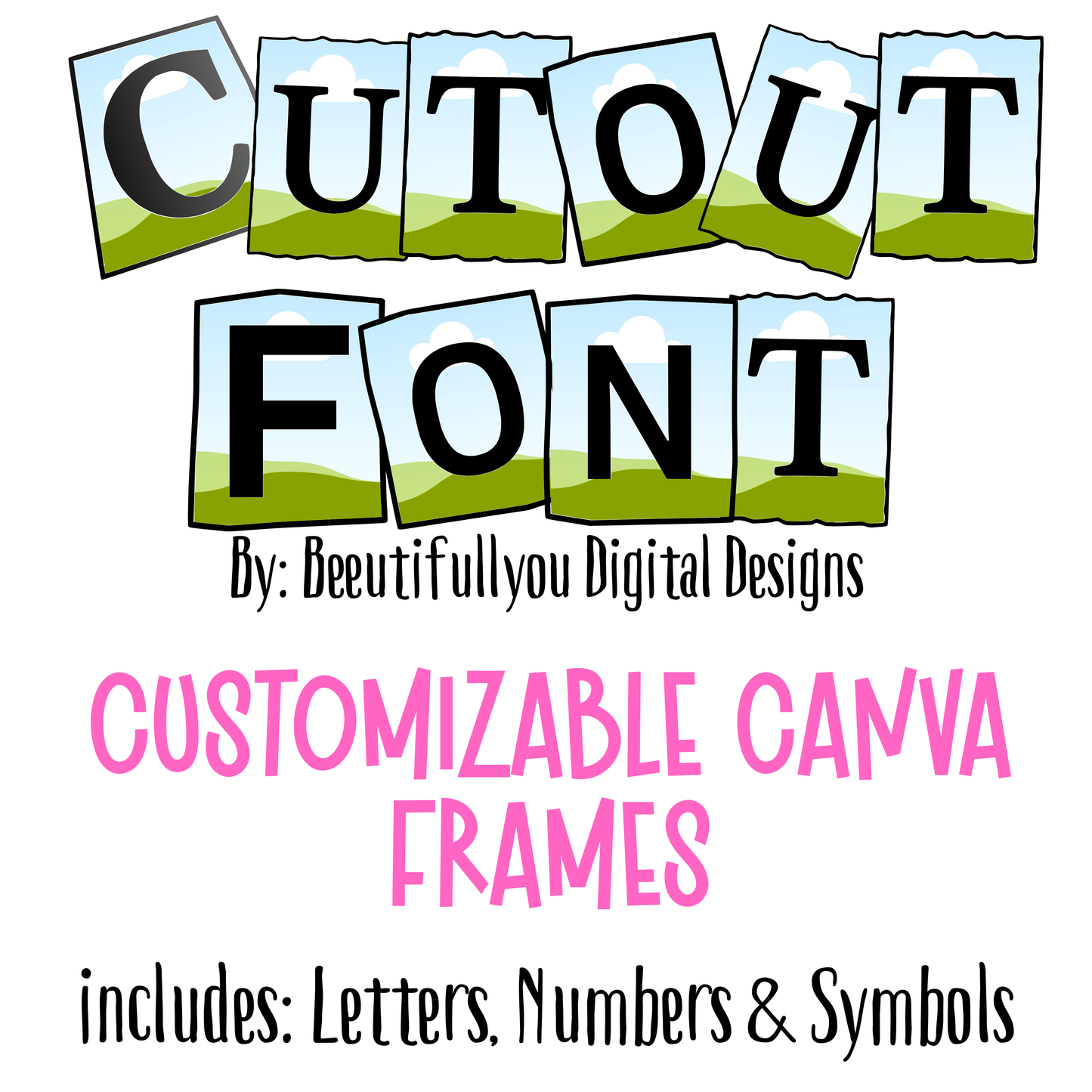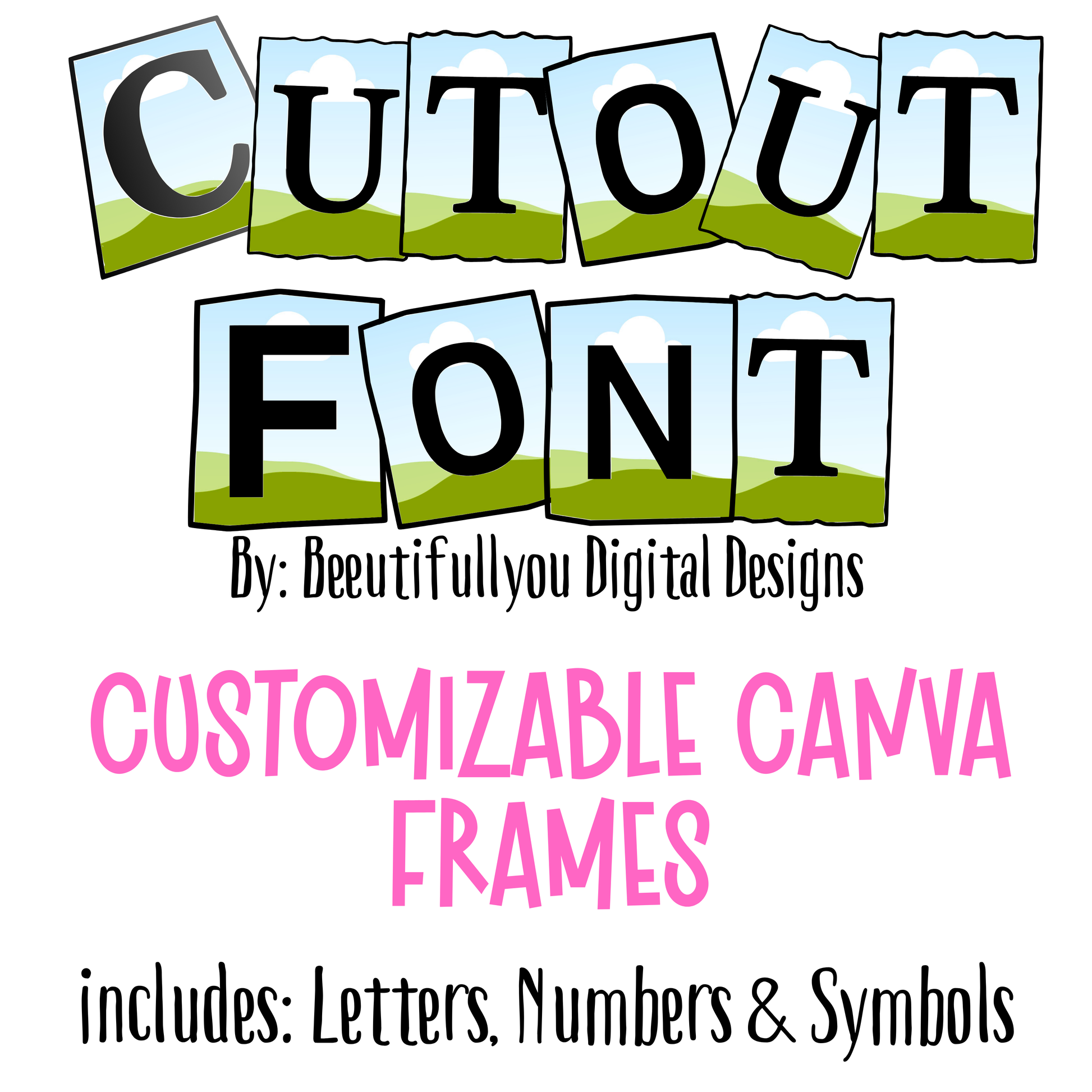
Create your own playful, eye-catching font styles with this Cutout Font Canva Frames set 🎨✂️
Designed for easy customization inside Canva, these frames allow you to build unique alphabets, number sets, and themed fonts that you can use in your designs — or sell as your own finished font themes.
This set is perfect for creators who want to expand into font packs, alphabet bundles, kids designs, classroom graphics, event signage, and more — without starting from scratch.
✨ WHAT YOU CAN CREATE
Custom alphabet & number sets
Themed fonts (seasonal, kids, classroom, playful, etc.)
Clipart-style fonts
Digital alphabet bundles
Finished font themes for resale